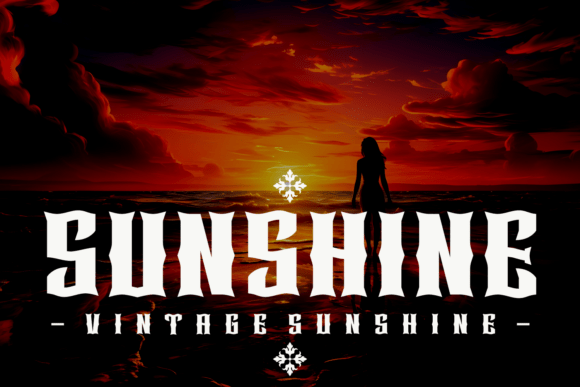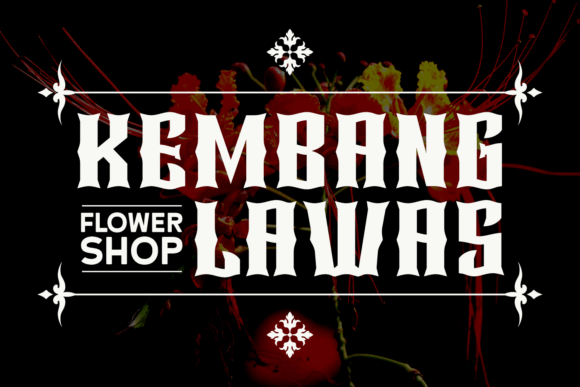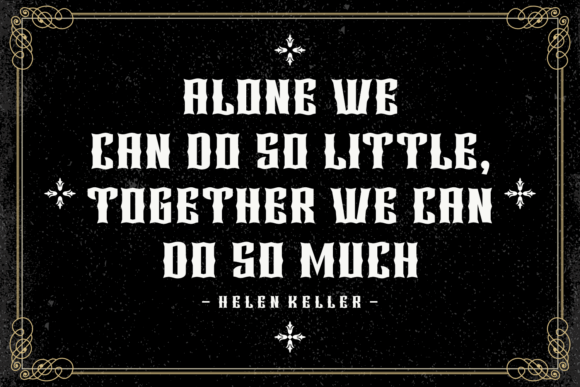
The Birth of a Design Icon: Unveiling the Brutal History Font
There’s something special about stumbling upon an old, dusty typewriter in a thrift store, and the tactile experience of placing your fingers on its worn keys. For designers, this moment often sparks a connection to the past, and the desire to infuse modern projects with a touch of heritage. This is precisely where the Brutal History Font comes in – a powerful blackletter font that embodies the essence of old-world gothic style.
With its bold strokes, sharp angular forms, and vintage texture, the Brutal History Font is a designer’s dream come true. Whether you’re creating posters, band logos, apparel, or tattoo designs, this font brings an air of strength and intensity to your work. Its commanding presence makes it perfect for retro branding, and its versatility ensures it will never go out of style.
Key Features of Brutal History Font
- Unique Characteristics: The Brutal History Font features a distressed, grunge aesthetic, with rough textures and imperfections that evoke a sense of nostalgia and grittiness.
- Character Set: The font includes a comprehensive character set, including Latin, Cyrillic, and Greek alphabets, as well as a range of punctuation marks and symbols.
- Style Options: The font offers multiple style options, including Regular, Bold, Italic, and Bold Italic, allowing designers to choose the perfect look for their project.
Brutal History Font Review
Overall, I’d say the Brutal History Font is a solid choice for designers who want to add a touch of grit and edge to their projects. ✨ The font’s distressed and worn look works particularly well for designs that aim to convey a sense of history, nostalgia, or industrialism. It’s also a great option for those who want to add some texture and visual interest to their typography.
One of the things I appreciate about the Brutal History Font is its versatility. ✨ It comes in a range of weights, from light to bold, which makes it easy to use in various contexts. Additionally, the font is highly customizable, allowing designers to tweak the settings to achieve the desired look.
- ⚠️ Limited language support: The font only includes support for a limited number of languages, which may be a concern for designers who work with clients from diverse linguistic backgrounds.
- ⚠️ Not ideal for body text: While the Brutal History Font works well for headlines and titles, it may not be the best choice for body text due to its rough and uneven texture.
Overall, I’d recommend the Brutal History Font for designers who want to add a touch of industrial chic to their projects. While it may have some limitations, its unique look and versatility make it a great addition to any designer’s toolkit.
The Brutal History Font is ideal for creating bold, attention-grabbing headlines and titles. Use it to add a touch of edginess to your designs, presentations, and documents. Some common use cases include:
– Creating a retro or vintage aesthetic
– Adding a bold, eye-catching headline
– Creating a sense of drama or tension